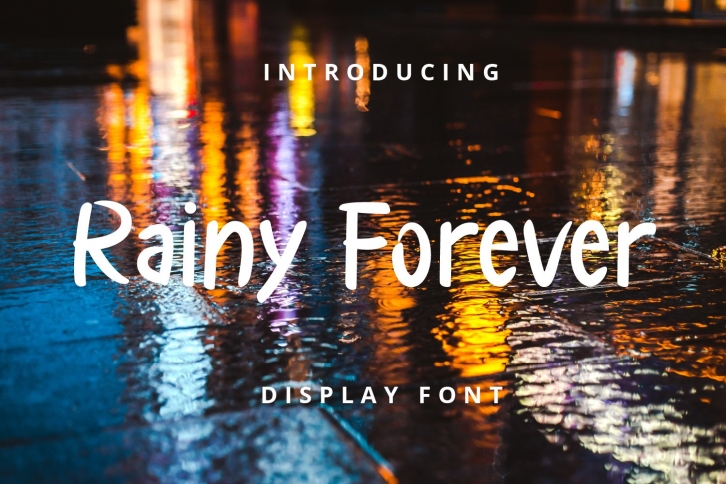
Rainy Forever is a trendy and unique font with an authentic style. It was designed by jupiter7 and it's a great choice for creative people who need such a font. It was released on February 10, 2021 and the file size is 18.33 MB. Rainy Forever will add an organic vibe to any design idea!